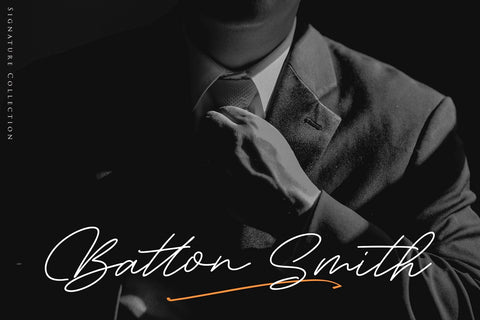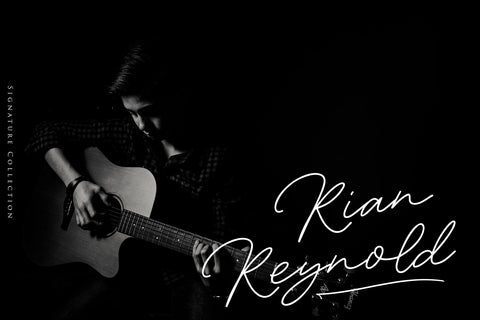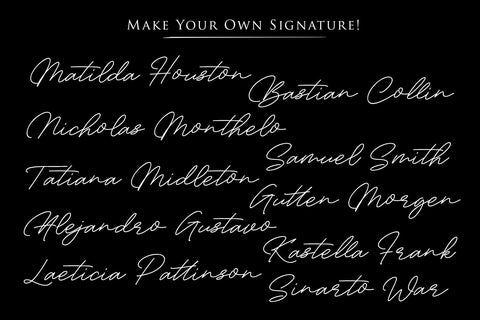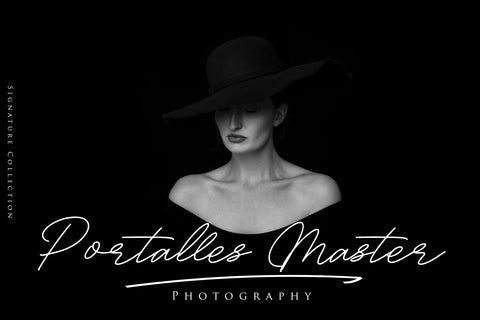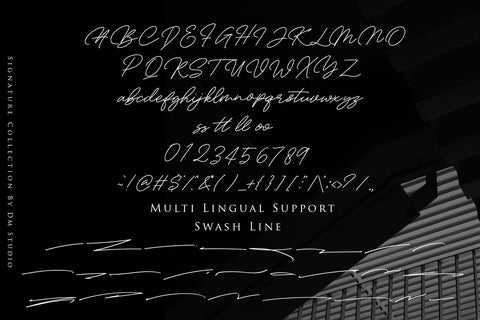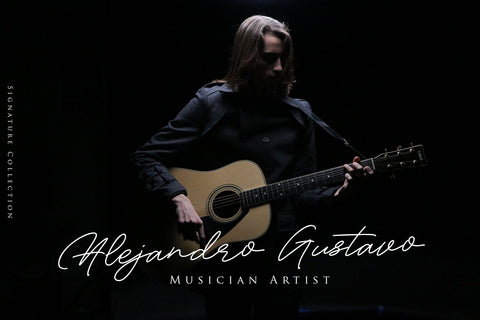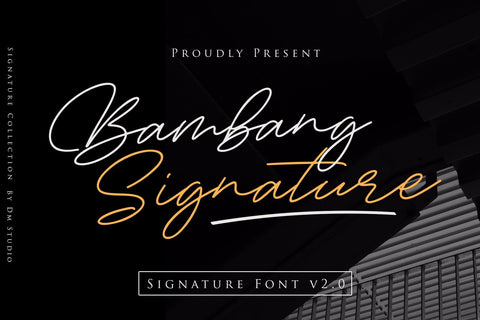
Bambang Signature V2.0 - Signature Font
Bambang Signature V2.0
Introducing our newest Signature Collection : Bambang Signature !
This is an elegant and classy of handwritten font, great for your digital Signature, business requirements, advertisements, branding, logos and much more!
- Numeric
- Symbols
- Underline swashes